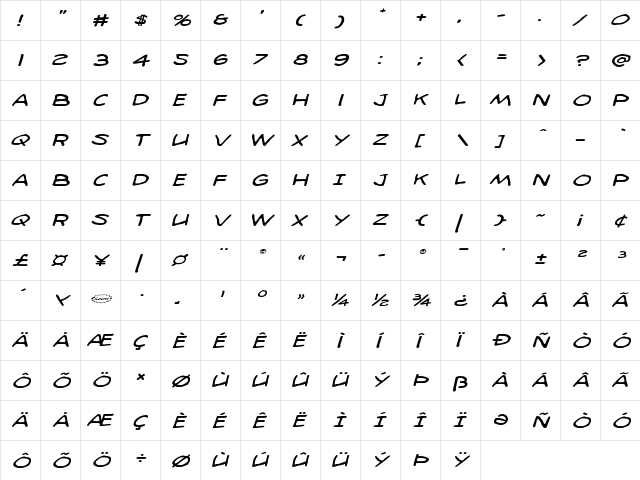
98 Bottles of Beer Expanded Italic Font Preview
Design Context for 98 Bottles of Beer Expanded Italic Typeface
98 Bottles of Beer Expanded Italic takes a measured approach to typography — its balanced proportions and neutral character make it a reliable workhorse for both digital and print work. The dynamic lean of this cut emphasises speed and emphasis in any layout.
Pro Tip: Try 98 Bottles of Beer Expanded Italic for annotation and caption copy alongside an upright companion — the contrast in angle creates a dynamic but ordered typographic system.